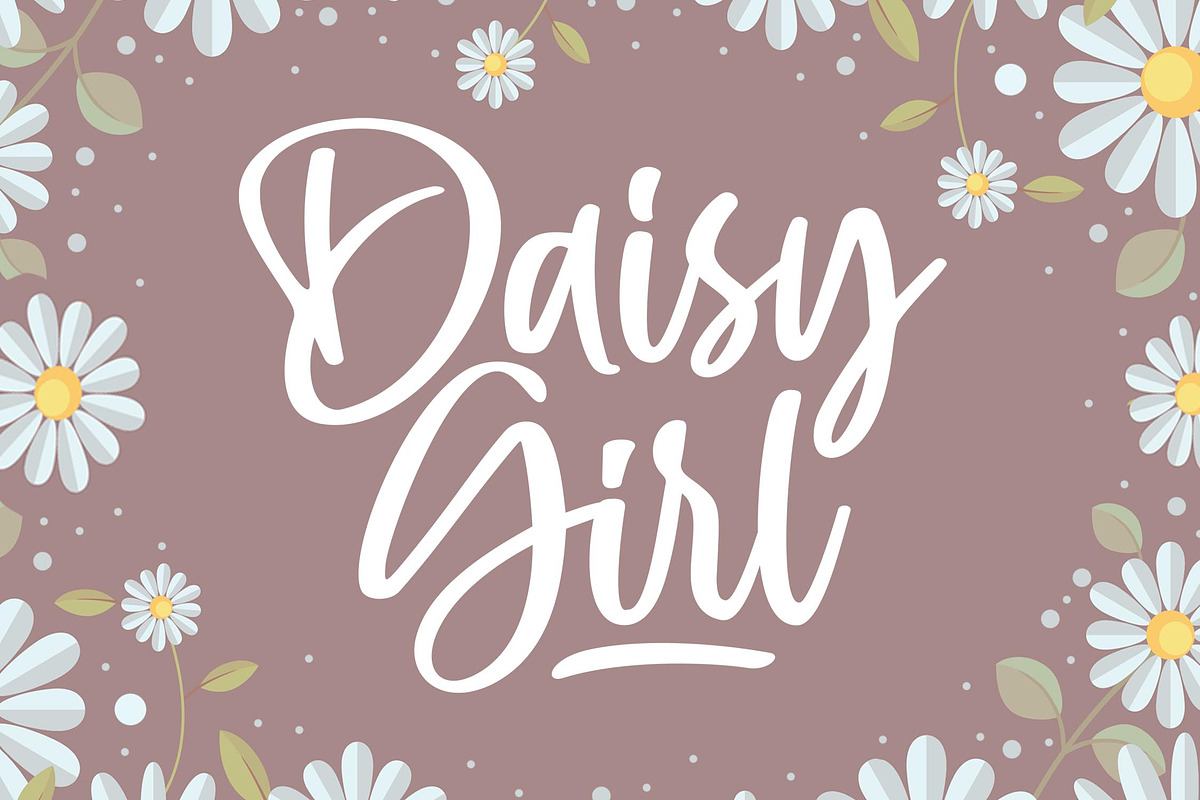
Daisy Girl - Cute Script Font Free Download
Daisy Girl – Cute Script Font Free Download is a playful and charming handwritten script typeface that captures a fun, youthful vibe. With its smooth, flowing strokes and friendly personality, this font is perfect for children's designs, greeting cards, social media graphics, invitations, and branding for lighthearted, whimsical projects.
Daisy Girl – Cute Script Font Free Download brings joy and a personal touch to your designs, making it ideal for projects that require a warm, approachable, and fun aesthetic.